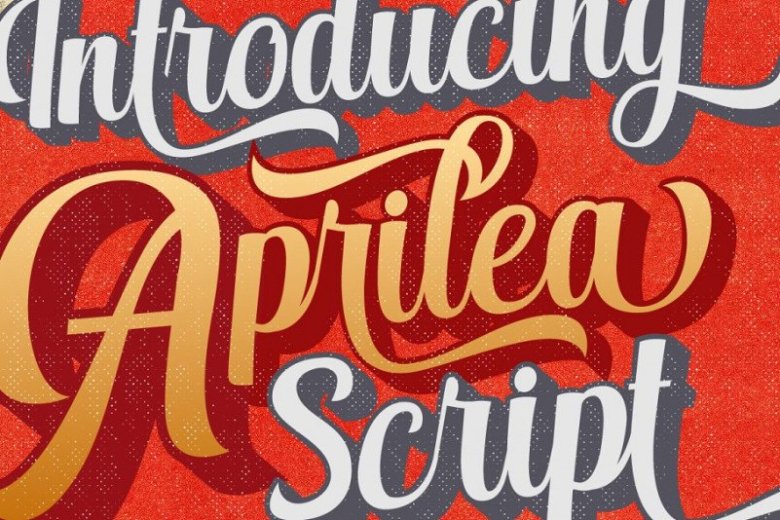
Aprilea Script Font
Thank you for looking! Introducing a new calligraphy typeface. Bring your design a special look. Introducing Aprilea Script Font! This font has 2 Features, Regular and Extruded, so it can generate interesting fonts to see, you no longer need to worry about how to make effect on the text. This font is suitable for young, passionate design, such as logo design, t-shirts, branding, and various other design purposes.